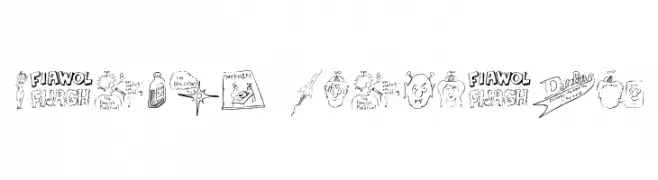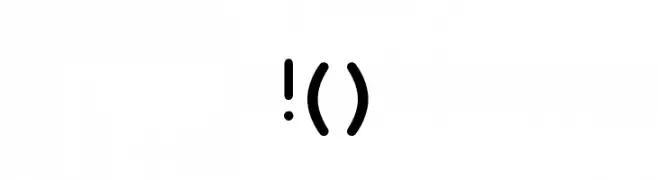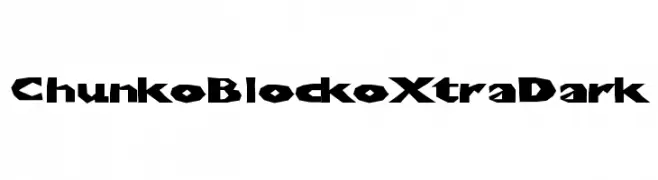
A graceful monoline script font with consistent stroke width and elegant curves.
A playful set of sci-fi and fandom-themed dingbats with a cartoonish, hand-drawn style.
An abstract and artistic font with a modern and minimalistic style.
A bold, hand-drawn font with a rough, distressed texture and dynamic style.
An edgy, angular font with a dynamic and energetic style.
A bold, geometric font with wide characters and a modern aesthetic.